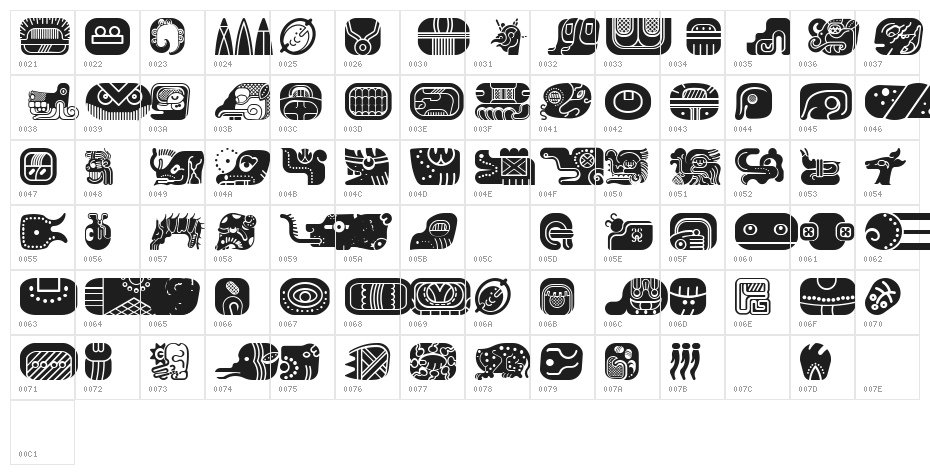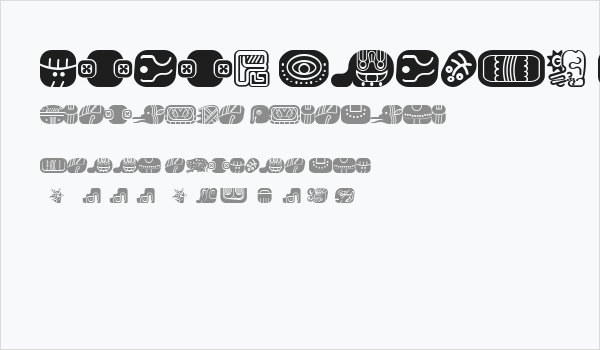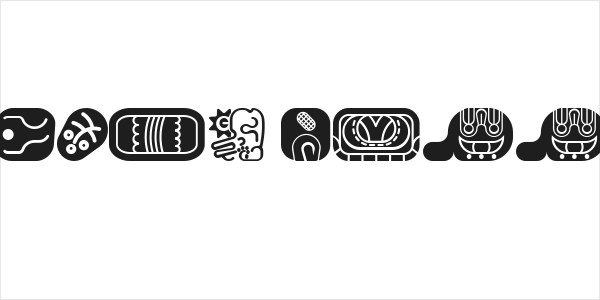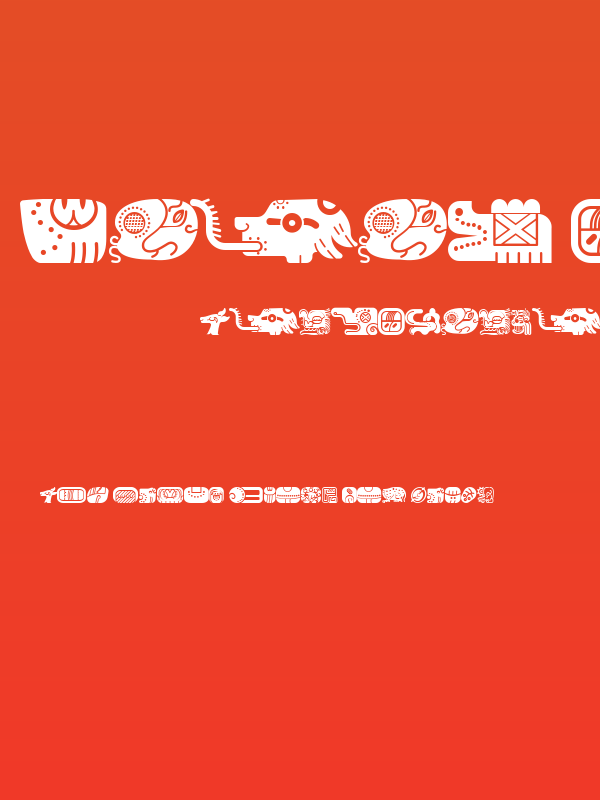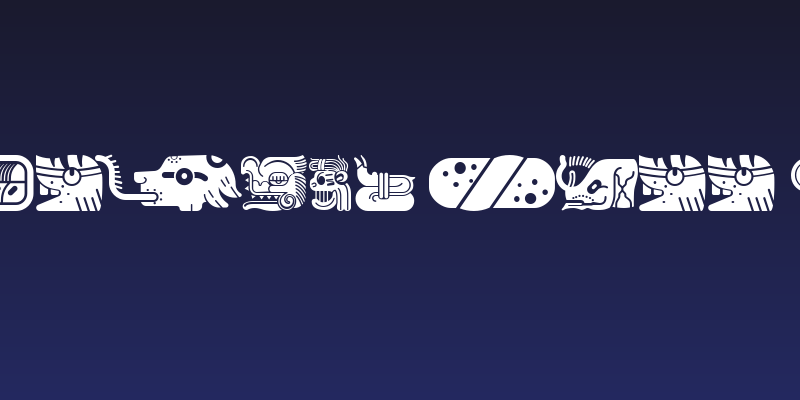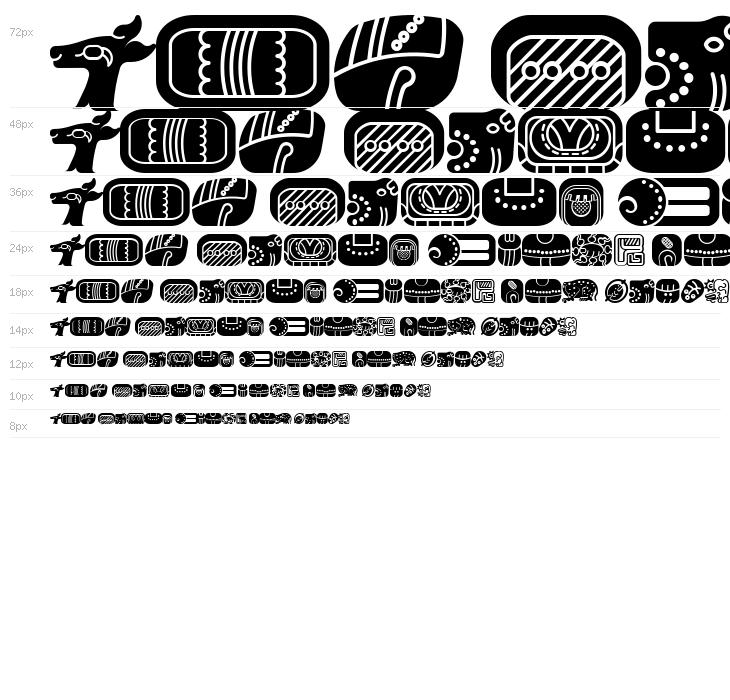
mayan glyphs fill Regular Font
mayan glyphs fill Regular Description
This font is a decorative and intricate representation of Mayan glyphs, capturing the essence of ancient Mesoamerican script. Each character is uniquely designed with complex patterns and shapes, resembling historical carvings and symbols found in Mayan artifacts. The glyphs are bold and filled, creating a striking visual impact. The style is highly detailed, with each letter featuring unique elements such as dots, lines, and curves that mimic traditional Mayan art. This font is not intended for standard text but rather for artistic and thematic purposes, offering a glimpse into the rich cultural heritage of the Mayan civilization.
| Use Case | Logos, Artistic projects, Themed events |
| Proposed Projects | Ideal for cultural projects, historical displays, themed events, artistic posters, and educational materials about ancient civilizations. |